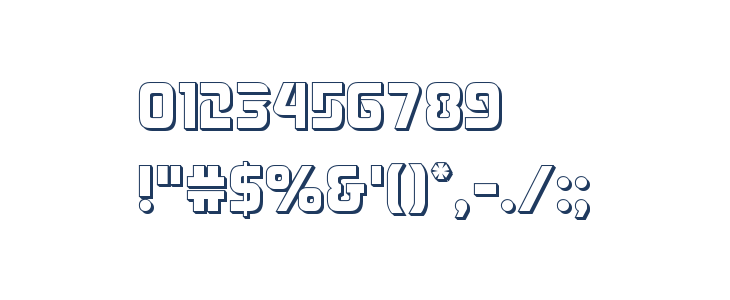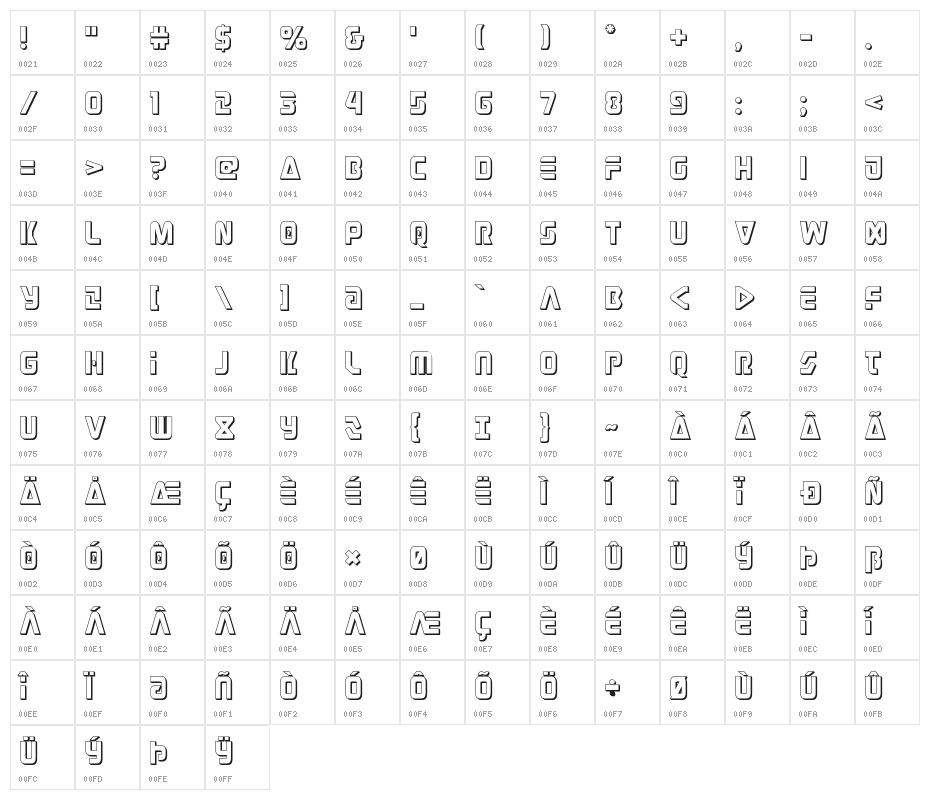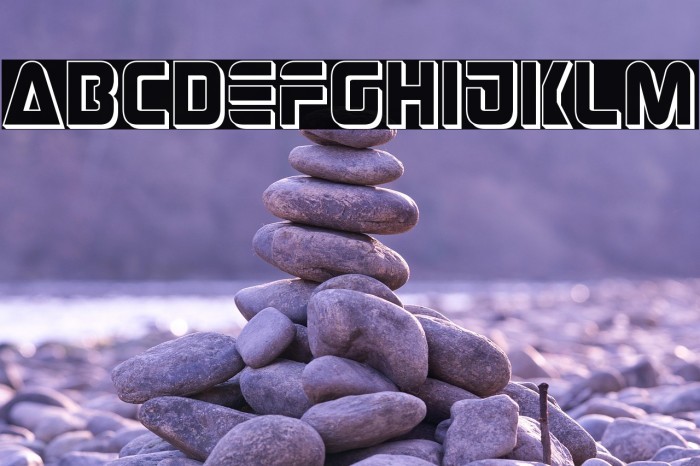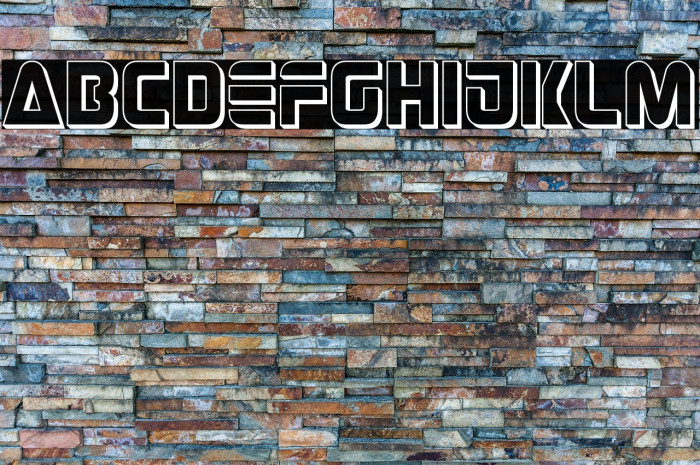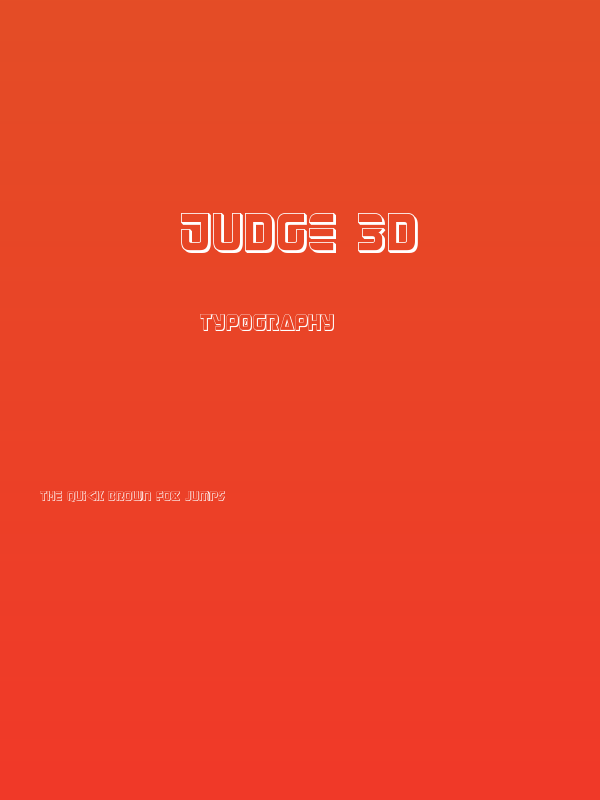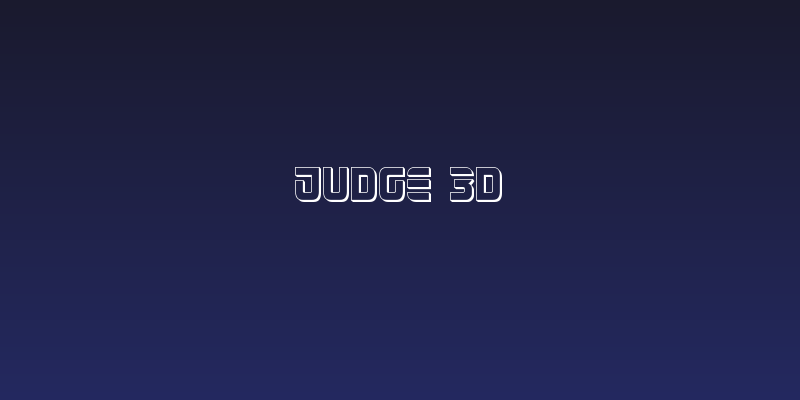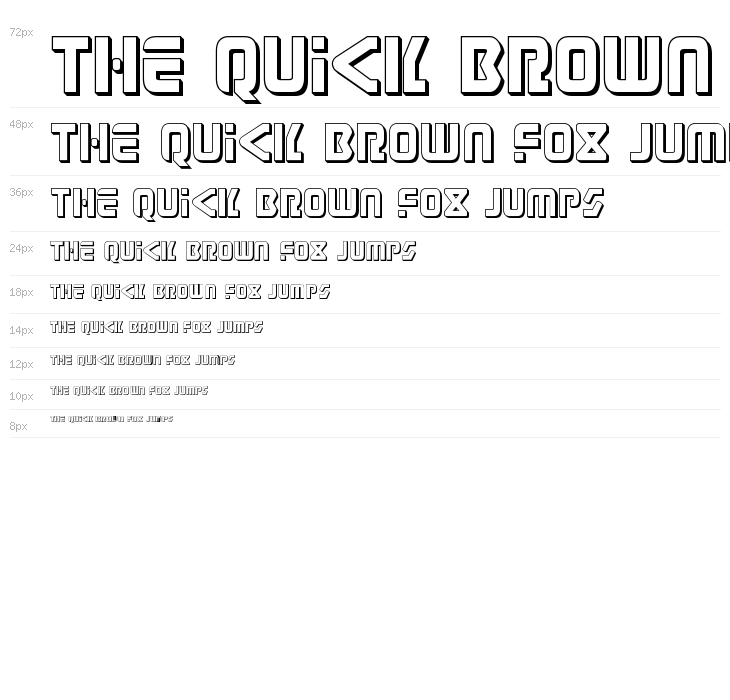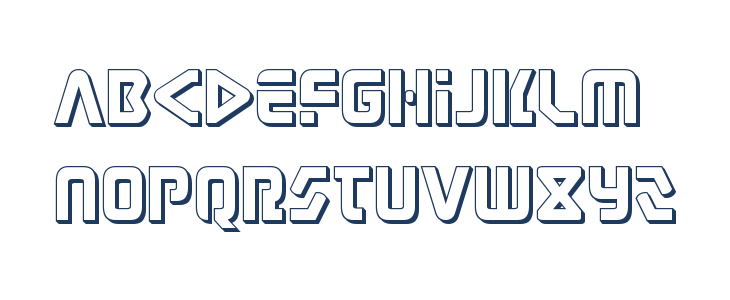
Judge 3D Font
Judge 3D Description
This font features a bold, futuristic design with a three-dimensional effect that gives each character a distinct, shadowed appearance. The geometric shapes and sharp angles create a sense of depth and modernity, making it stand out in any design. The uppercase and lowercase letters maintain a consistent style, with unique cutouts and lines that add to the dynamic look. The numbers and special characters follow the same aesthetic, ensuring a cohesive appearance across all text. This font is ideal for projects that require a strong visual impact and a contemporary feel.